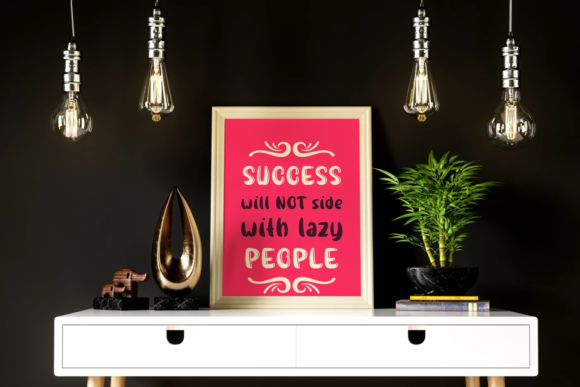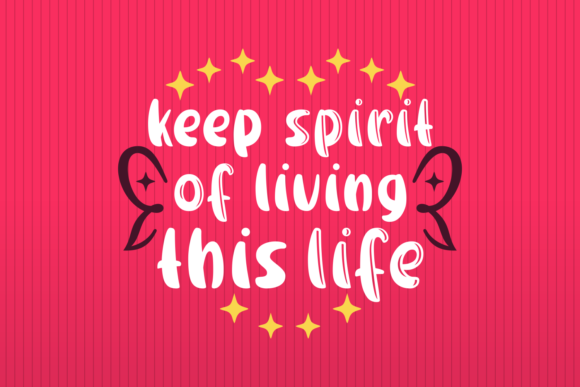
Friendly Neighbor Font
About Friendly Neighbor Font
The Friendly Neighbor is a fun typeface. It includes 2 unique styles combined in one pack. This friendly typeface has a great readability and is perfect for adding a playful feel to your designs.
Also included are amazing doodles to add an extra fun touch to your designs.